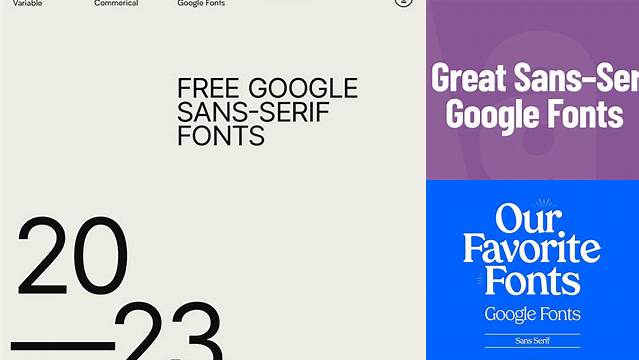
Sans Serif Google Fonts: Free Downloads And Expert Tips
Are you looking for the perfect sans serif font for your next project? Well, you've come to the right place, guys! Sans serif fonts are super versatile and can be used for everything from websites and logos to print materials and presentations. In this guide, we'll dive deep into the world of sans serif Google Fonts, showing you where to find them, how to download them for free, and even give you some tips on choosing the best ones for your needs. So, letâs get started and explore the amazing world of sans serif fonts!
What are Sans Serif Fonts?
First things first, let's talk about what sans serif fonts actually are. The term "sans serif" comes from French, meaning "without serifs." Serifs are the small decorative strokes or lines at the end of the strokes in a letter. Think of fonts like Times New Romanâthose little feet and hands? Thatâs a serif font. Sans serif fonts, on the other hand, are clean and modern, without those extra strokes. This makes them great for digital screens because they're easy to read even at smaller sizes. Popular examples include Arial, Helvetica, and, of course, many of the Google Fonts weâll be discussing today.
When considering sans serif fonts, it's crucial to understand their versatility. Their clean lines and modern aesthetic make them ideal for a variety of applications. Whether you're designing a website, crafting a logo, or creating marketing materials, sans serif fonts offer a crisp and contemporary look. The absence of serifs gives these fonts a minimalist feel, making them highly legible on screens, which is why they are a staple in web design. This clarity extends to print as well, where sans serif fonts can convey a sense of professionalism and simplicity. In presentations, they ensure that your message is communicated clearly and effectively, without the visual clutter that can sometimes accompany serif fonts. Overall, the adaptability of sans serif fonts makes them a go-to choice for designers and content creators across various mediums.
Moreover, the appeal of sans serif fonts extends beyond mere aesthetics. Their simplicity and legibility contribute to a more user-friendly experience, especially in digital environments. Think about reading text on a smartphone or a tablet â sans serif fonts ensure that the characters remain clear and distinct, reducing eye strain and improving comprehension. This is particularly important for websites and applications where readability is paramount. The clean and straightforward appearance of sans serif fonts also helps to convey a sense of modernity and efficiency, making them a popular choice for tech companies and startups. In contrast to serif fonts, which can evoke a more traditional or formal feel, sans serif fonts project an image of innovation and approachability. By choosing the right sans serif font, you can significantly enhance the overall impact of your design, ensuring that your message is not only seen but also easily understood and appreciated.
The key characteristics of sans serif fonts include their uniform strokes and the absence of decorative serifs, which contribute to their clean, modern appearance. This uniformity ensures that each character has a consistent weight and thickness, making the text appear balanced and harmonious. The simplicity of these fonts also makes them highly scalable, meaning they look just as good in large headlines as they do in smaller body text. This scalability is crucial for responsive design, where elements need to adapt seamlessly across different screen sizes. Furthermore, the clear and straightforward design of sans serif fonts helps to create a sense of openness and accessibility, making them ideal for designs that aim to be inclusive and user-friendly. By understanding these fundamental aspects of sans serif fonts, you can make informed decisions about which fonts will best suit your specific needs and design goals, ensuring that your projects always communicate effectively and stylishly.
Another significant advantage of using Google Fonts is their extensive library. Google Fonts boasts a vast collection of typefaces, with hundreds of sans serif options alone. This means you have a wealth of choices to find the perfect font that matches your project's aesthetic and functional requirements. Whether you're looking for a bold and impactful font for headings or a clean and legible font for body text, Google Fonts has got you covered. The variety ensures that you can discover fonts that align perfectly with your brand identity and the overall tone of your design. This extensive selection also allows for greater creativity and experimentation, as you can explore different font combinations to achieve the desired visual effect. Furthermore, the Google Fonts library is continuously updated with new fonts, ensuring that you always have access to the latest and greatest typefaces.
The accessibility of Google Fonts is another key benefit. These fonts are designed to be easily integrated into various platforms and applications, making them a convenient choice for designers and developers alike. You can seamlessly embed Google Fonts into your website by adding a simple link in your HTML, eliminating the need to upload font files to your server. This not only simplifies the design process but also helps to improve website loading times, as the fonts are served from Google's global network of servers. Additionally, Google Fonts are compatible with popular design software such as Adobe Photoshop, Illustrator, and InDesign, allowing you to use them in your print and digital projects with ease. This broad compatibility ensures that you can maintain consistency in your branding and design efforts across all mediums. Moreover, the open-source nature of Google Fonts encourages collaboration and innovation within the design community, leading to the development of even more high-quality typefaces.
Finally, the performance benefits of Google Fonts are substantial. When you use Google Fonts, the font files are served from Googleâs highly optimized servers, which are designed to deliver content quickly and efficiently. This means that your website visitors will experience faster loading times, which is crucial for user engagement and SEO. Slow loading times can frustrate users and lead to higher bounce rates, so using a service like Google Fonts can make a significant difference in your website's performance. Additionally, Google Fonts uses advanced caching techniques to ensure that fonts are loaded only once and then stored in the user's browser cache. This further reduces the load on your server and speeds up subsequent page loads. By leveraging Googleâs infrastructure, you can ensure that your website not only looks great but also performs optimally, providing a seamless experience for your visitors.
How to Download Sans Serif Google Fonts for Free
Okay, so youâre sold on using Google Fonts, right? Awesome! Now, letâs talk about how to actually download them. Itâs super simple. Just head over to the Google Fonts website (fonts.google.com). You'll see a huge catalog of fonts. On the left-hand side, youâll find filters to help you narrow down your search. Click on the "Sans Serif" filter to see all the sans serif fonts available. You can also filter by things like font thickness, slant, and width to find exactly what you need. Once you find a font you like, click on it. Youâll see a preview of the font in different sizes and styles. If youâre happy with it, click the "Download family" button in the top right corner. Thatâs it! The font will download as a ZIP file, which you can then extract and install on your computer.
In conclusion, the world of sans serif Google Fonts offers a wealth of opportunities for designers and creatives. From the clean lines of Roboto to the friendly openness of Open Sans, the versatility of Lato, and the bold geometric presence of Montserrat, thereâs a sans serif font to suit every project and aesthetic. By understanding the characteristics of these fonts and how they can be used effectively, you can elevate your designs and communicate your message with clarity and style. The accessibility and cost-effectiveness of Google Fonts make them an invaluable resource for designers of all levels, providing access to a vast library of high-quality typefaces that can be used in both personal and commercial projects. So, embrace the power of sans serif fonts, explore the Google Fonts library, and let your typographic creativity flourish.